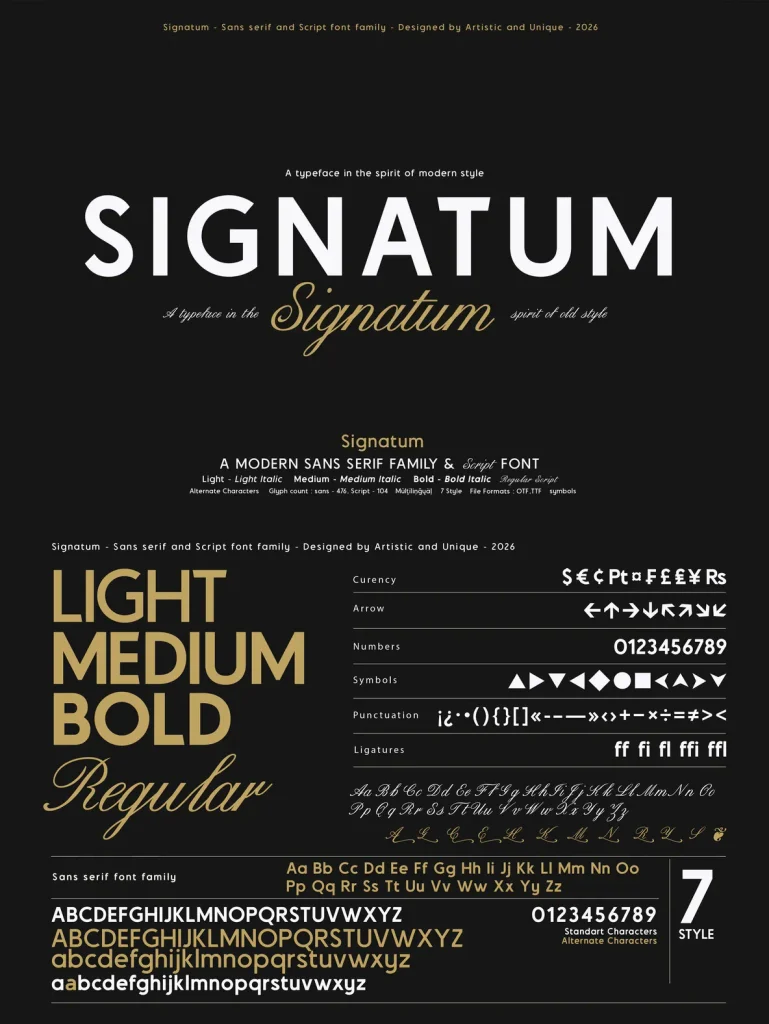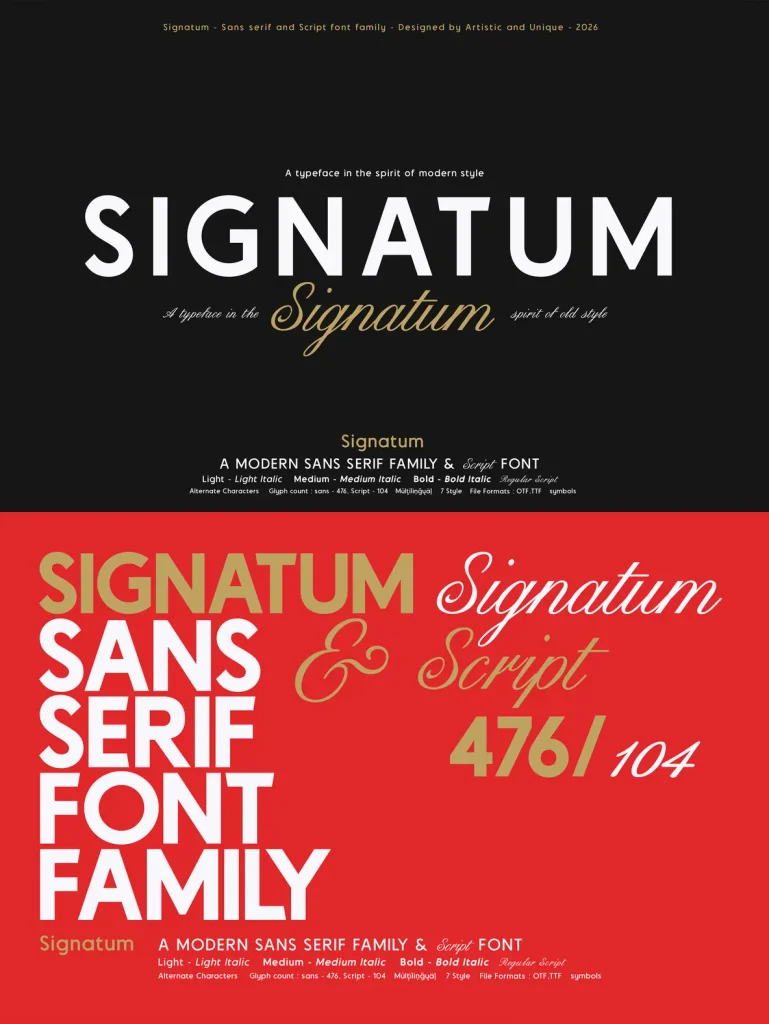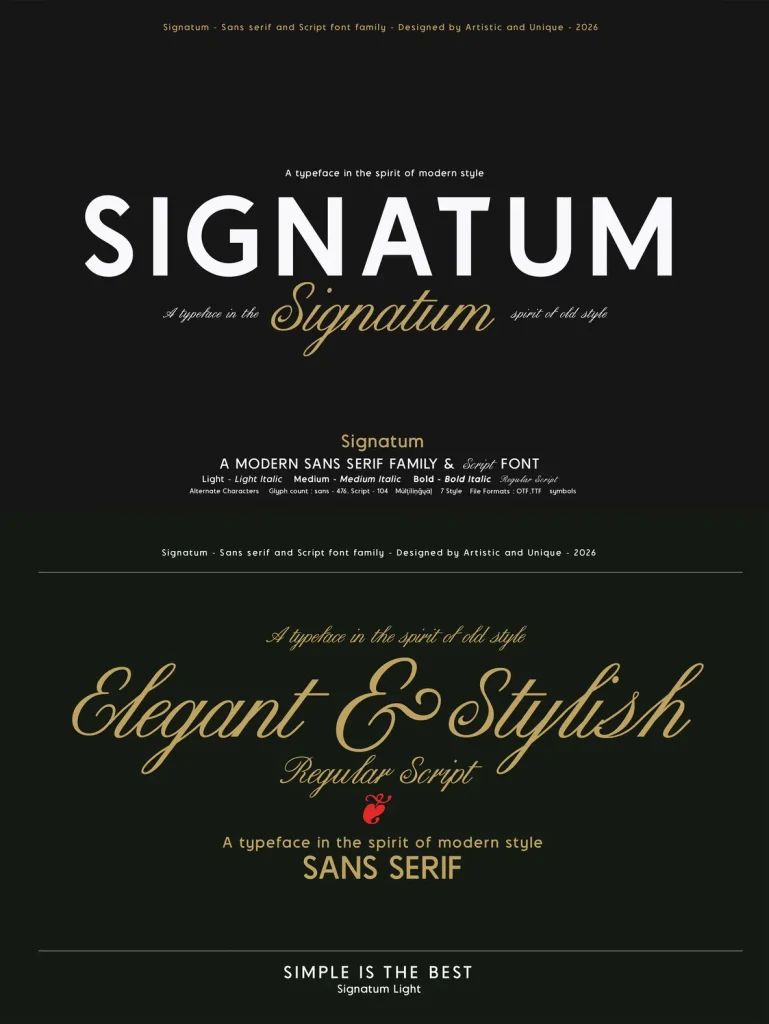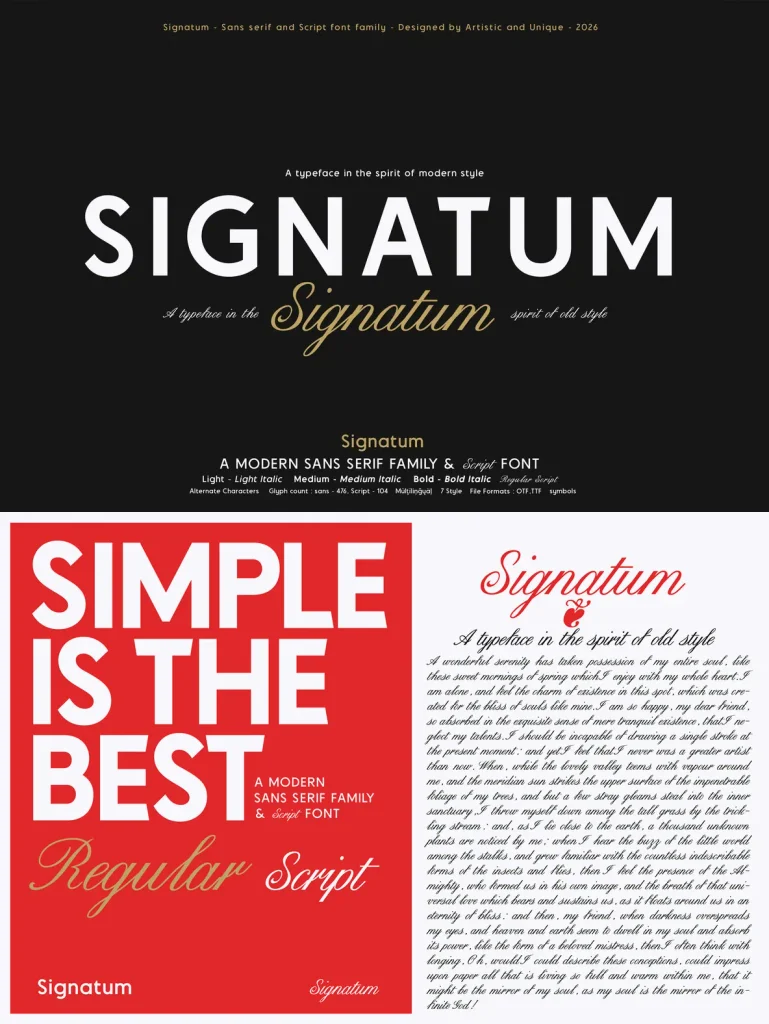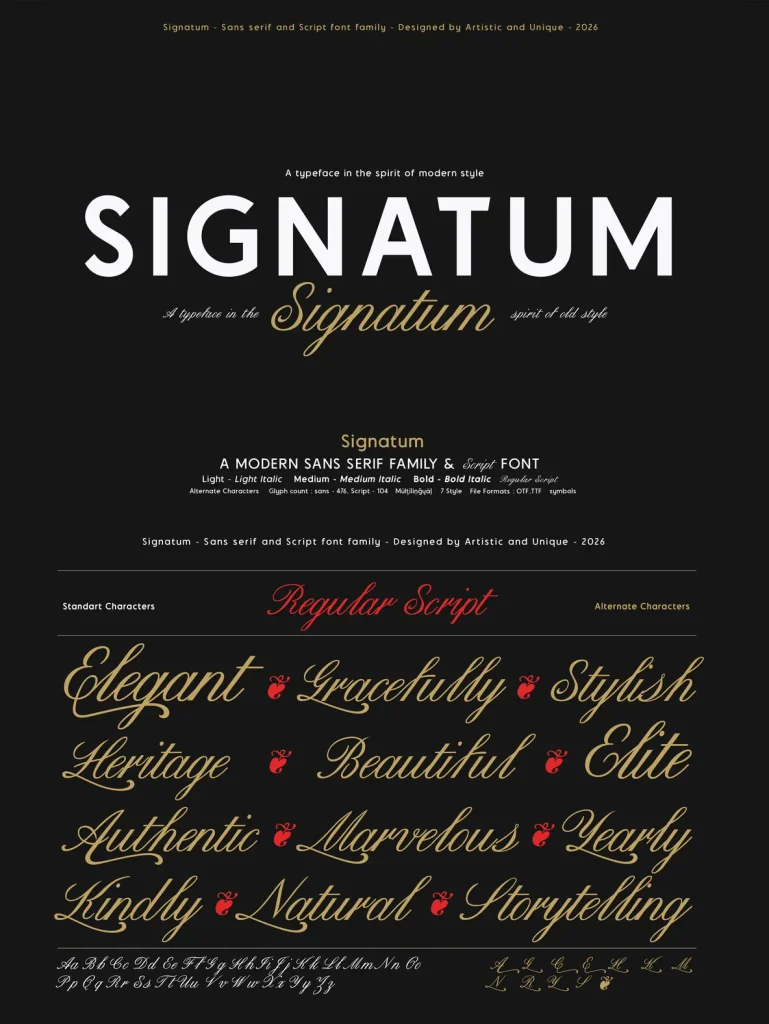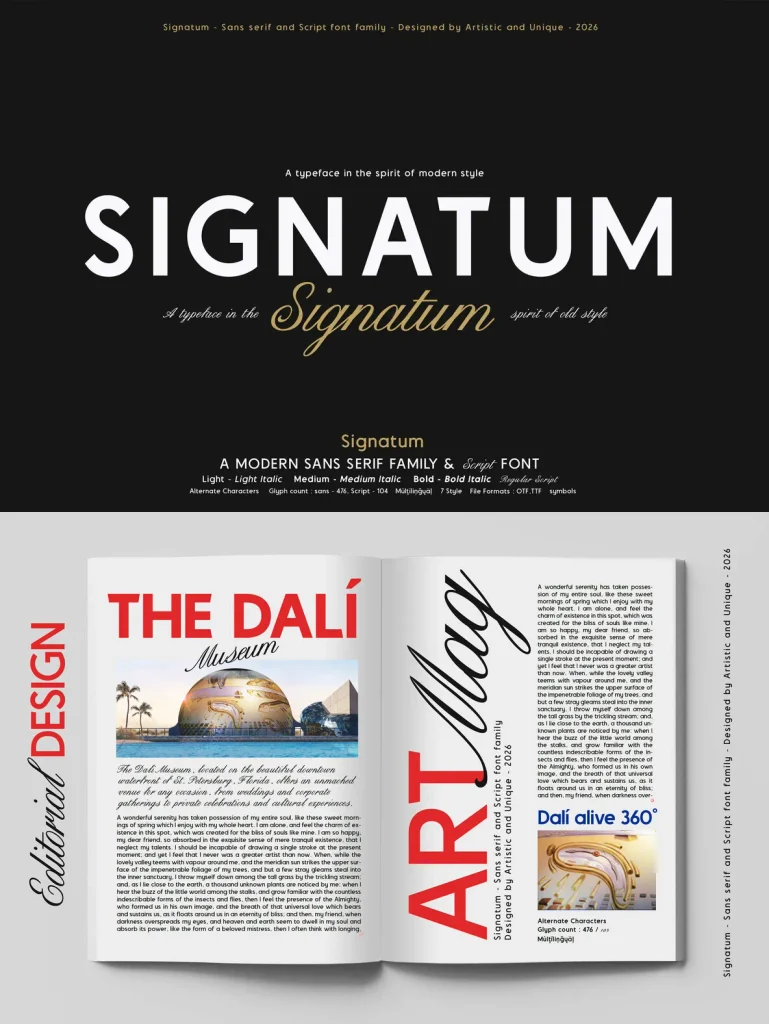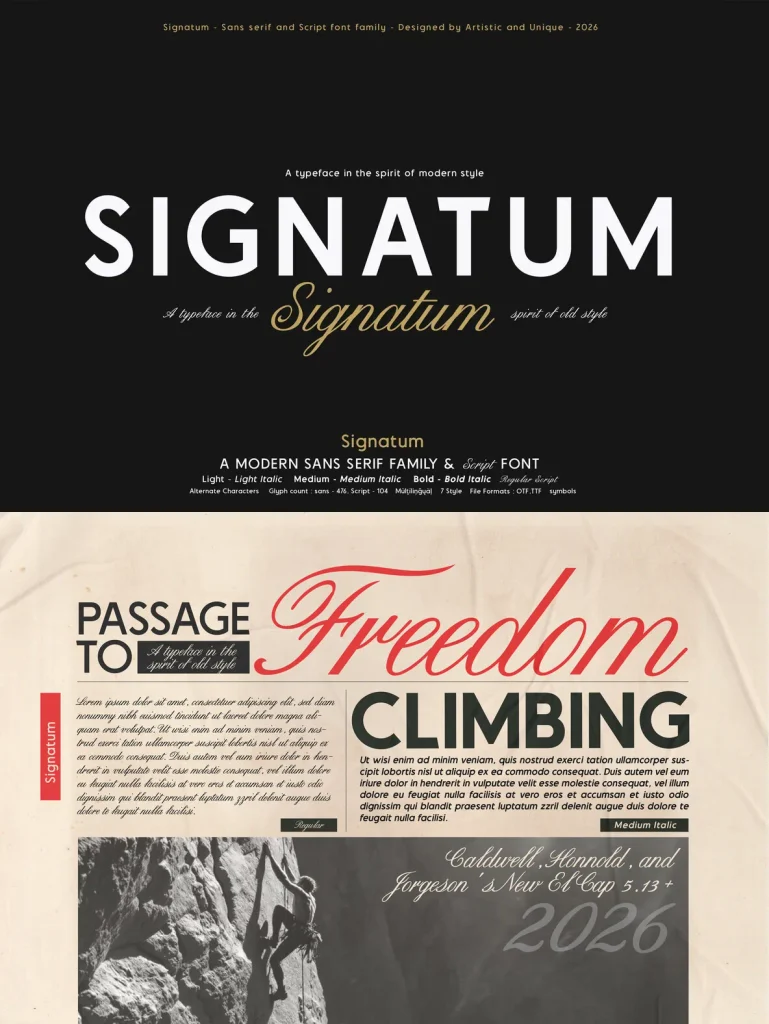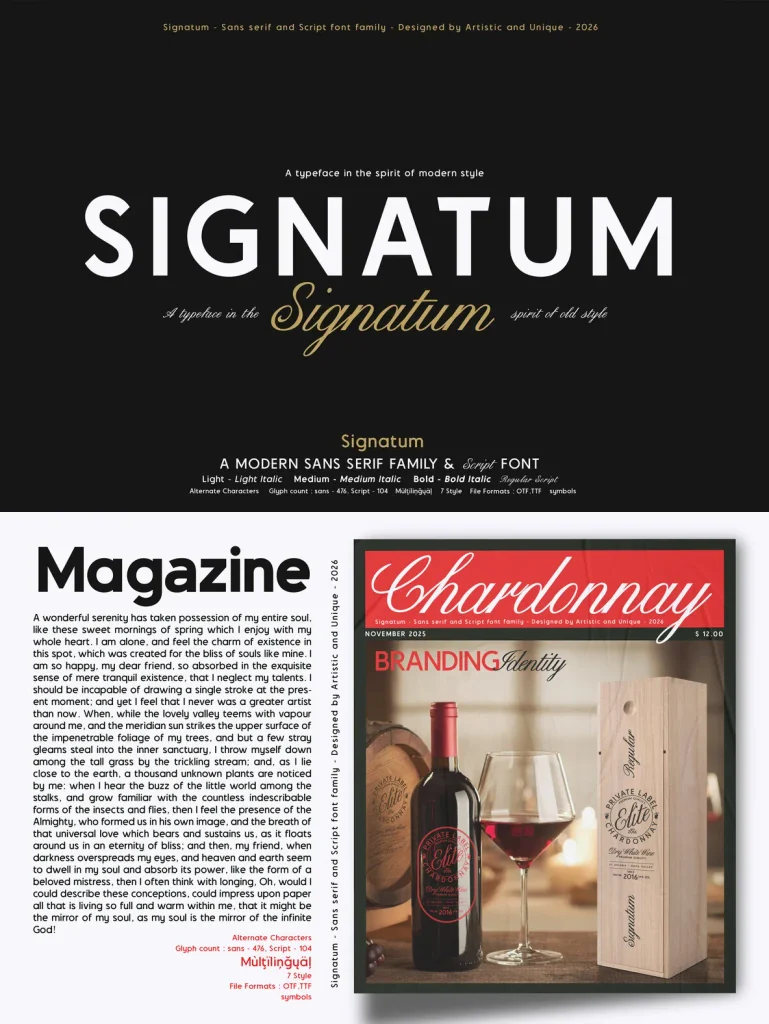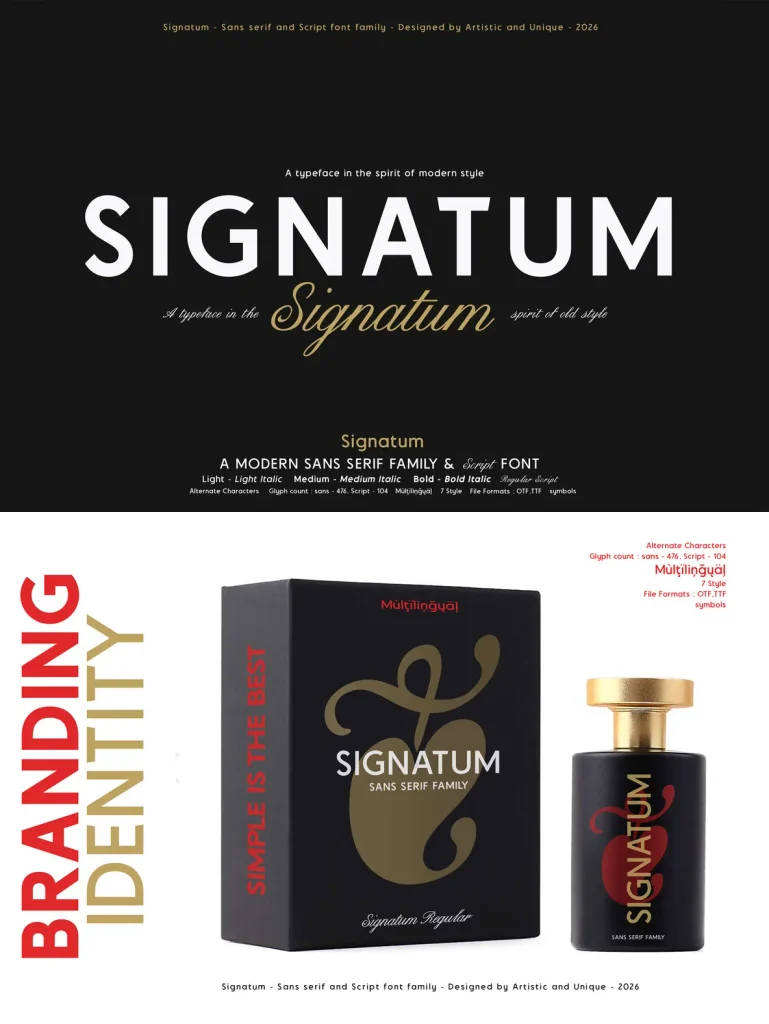
Signatum — Luxury in Two Voices
Signatum is a sans serif and script font family with 7 styles and multilingual support. Made for designs that need a touch of luxury, it pairs clean sans serif structure with expressive script character. This duo combines modern and classic design concepts, making it well suited for logos, branding, and refined creative projects.
If you aim to use the old and the new together, the Signatum font family is ideal for your needs. Use it for editorial layouts, books, magazines, newspapers, packaging, movie titles and content, brand identity, websites, or logo design. Signatum offers a harmonious aesthetic blend for modern and classic needs, with practical range across print, digital, and identity work.
Multilingual support,
7 different styles,
Style alternatives and additional symbols,
Rich glyph options (sans serif 476 – script 104),
Perfect for branding and publication design,
Suitable for web and logo design,